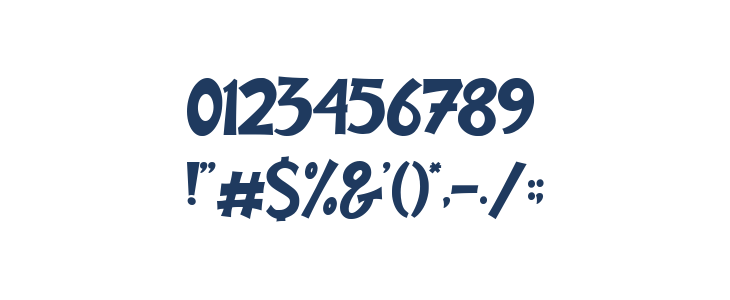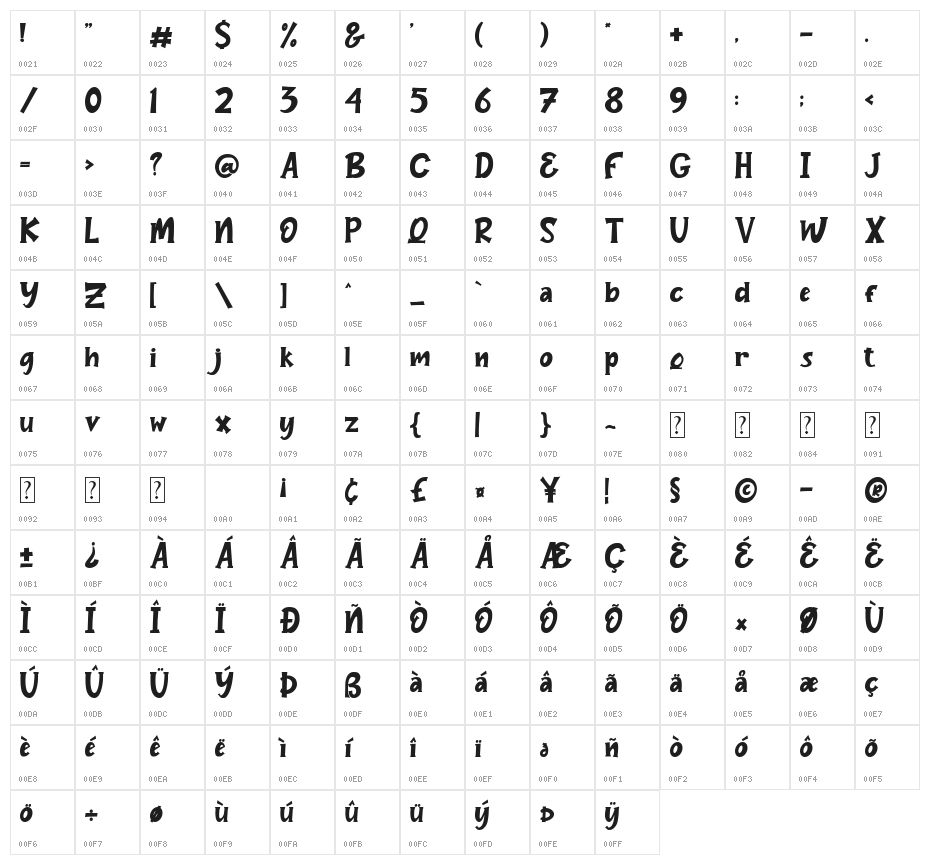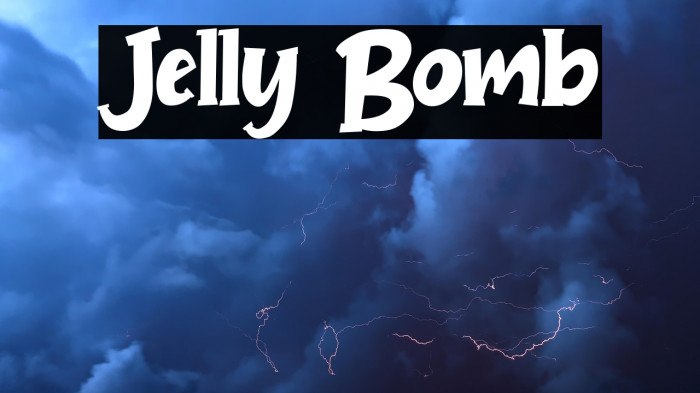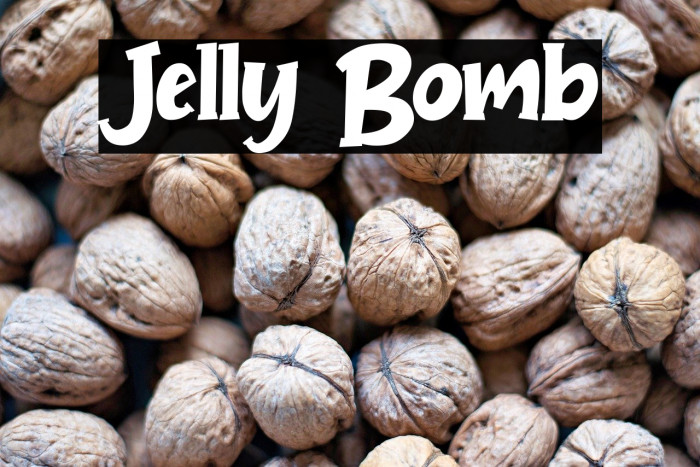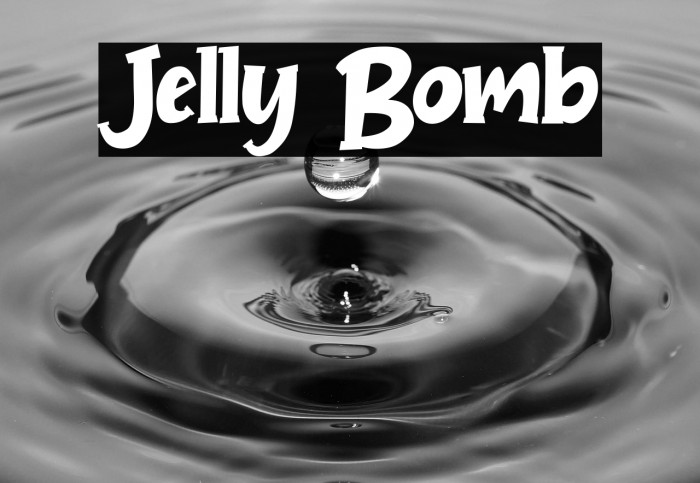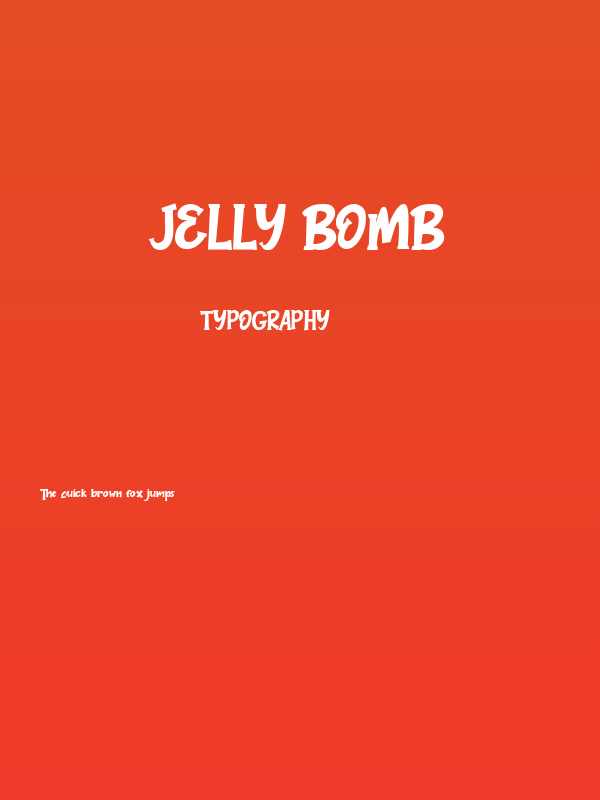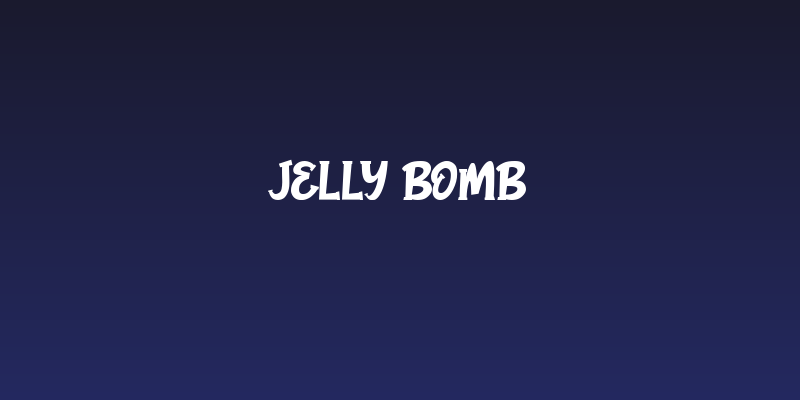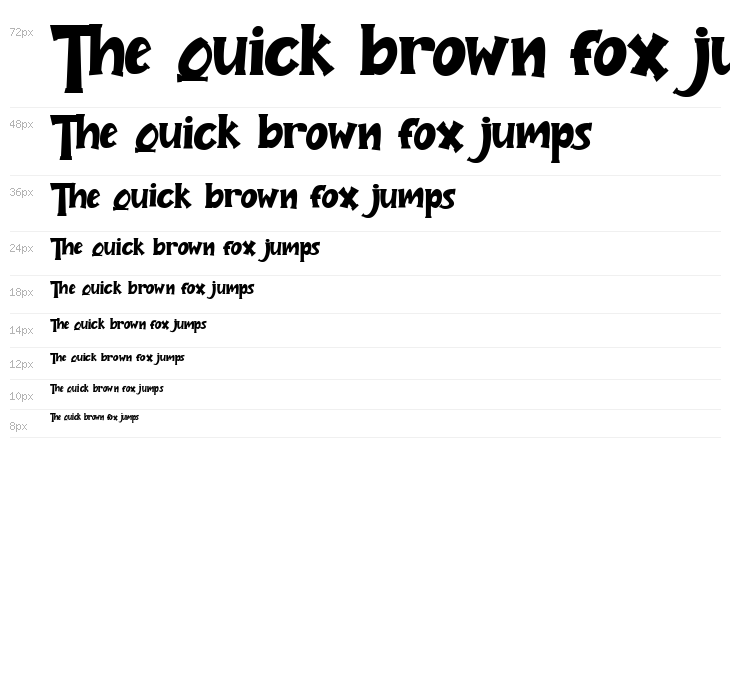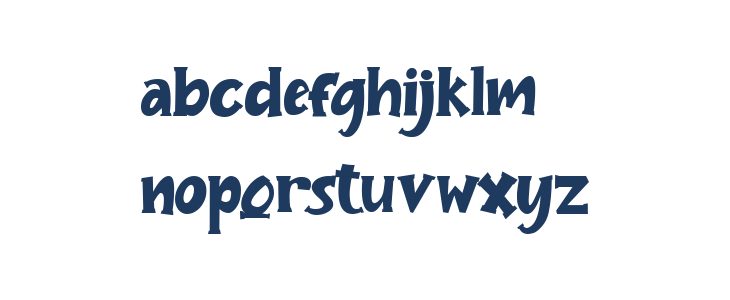
Jelly Bomb Font
Jelly Bomb Description
This playful and bold font features a whimsical, cartoon-like style with exaggerated curves and a lively presence. The letters are slightly tilted, adding a dynamic and energetic feel. The strokes are thick and consistent, creating a strong visual impact. The font includes both uppercase and lowercase letters, numbers, and a variety of special characters. Its unique and fun appearance makes it suitable for creative and informal projects. The characters are well-spaced, ensuring readability while maintaining a playful aesthetic.
| Overall Style | Playful, Cartoonish |
| Proposed Projects | Ideal for children's books, comic strips, playful branding, and party invitations. |